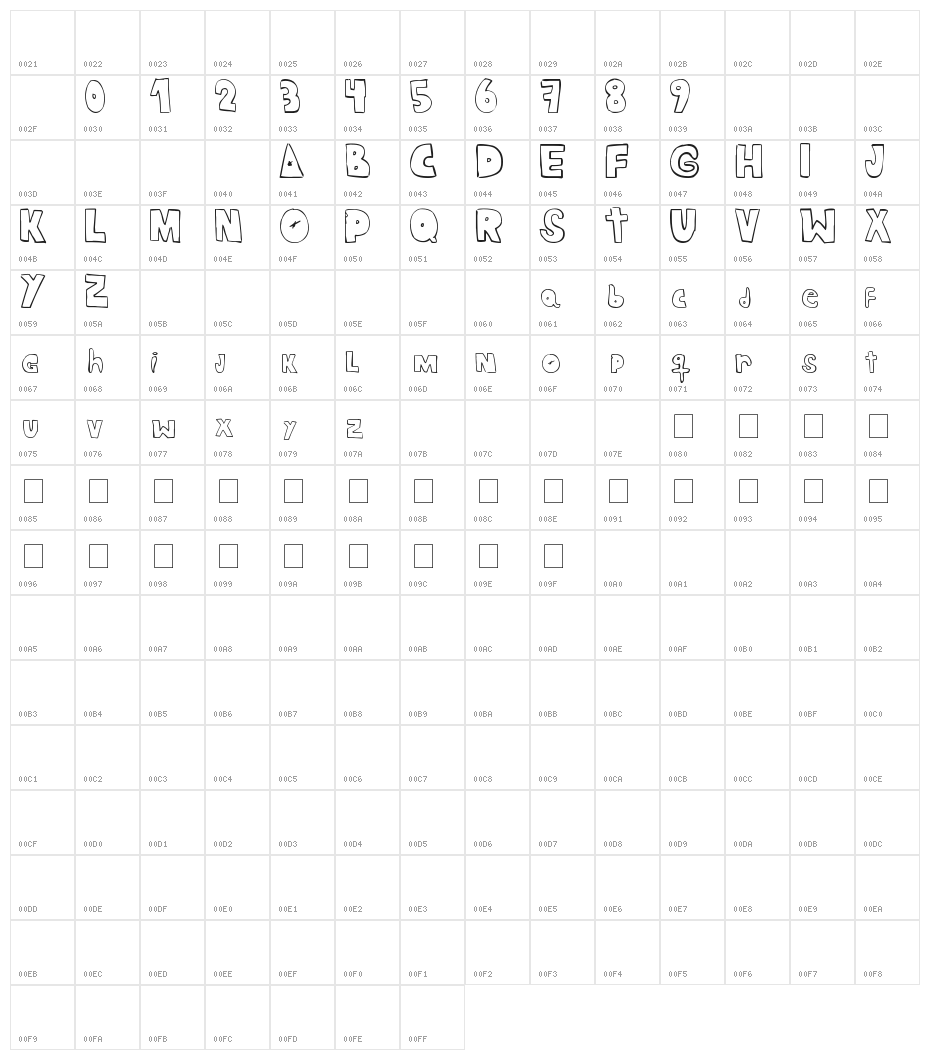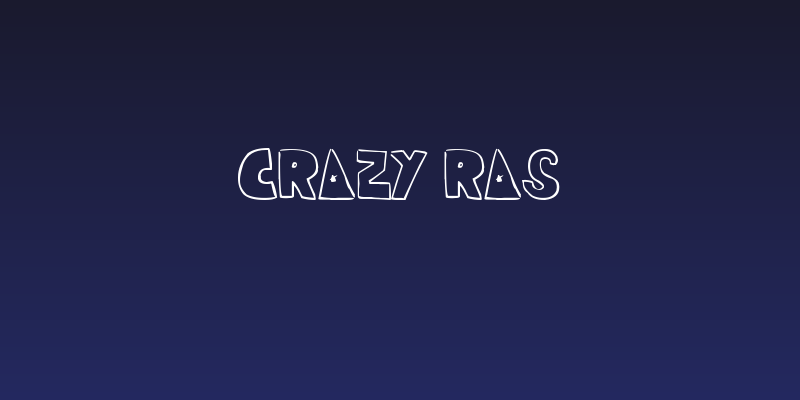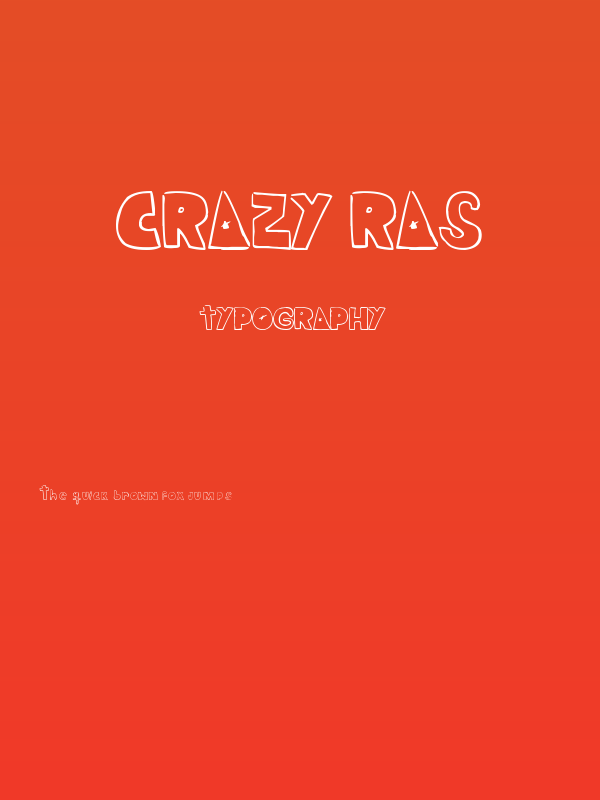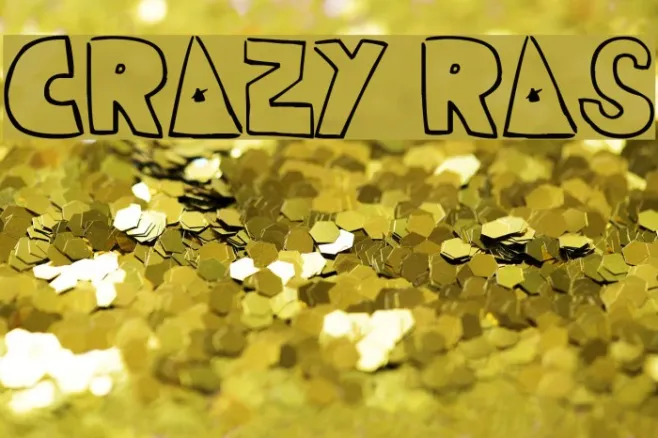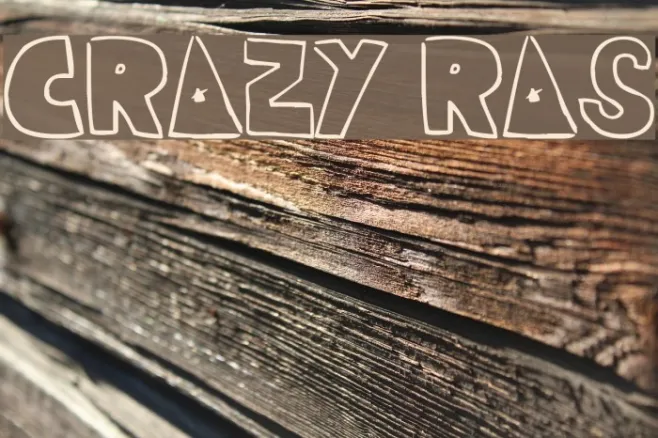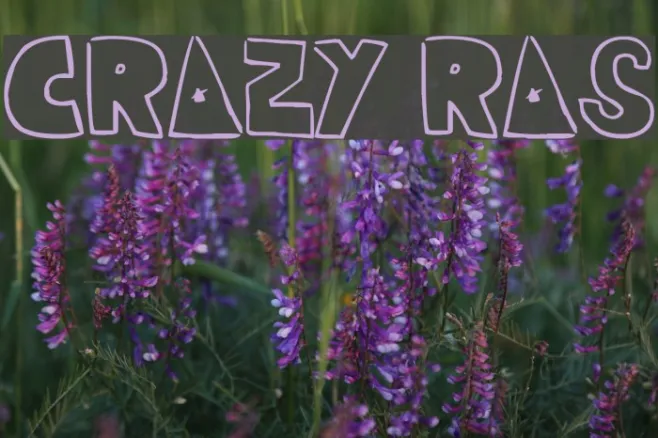
CRAZY RAS Font
CRAZY RAS Description
This playful and whimsical font features bold, irregular outlines that give it a hand-drawn, cartoon-like appearance. Each character is uniquely styled with varying thicknesses and quirky details, such as stars and lightning bolts within the letters. The font exudes a sense of fun and creativity, making it ideal for projects that require a lively and informal touch. Its exaggerated shapes and dynamic forms make it stand out, capturing attention with its energetic vibe.
| Proposed Projects | Ideal for children's books, comic strips, playful branding, party invitations, and creative posters. |